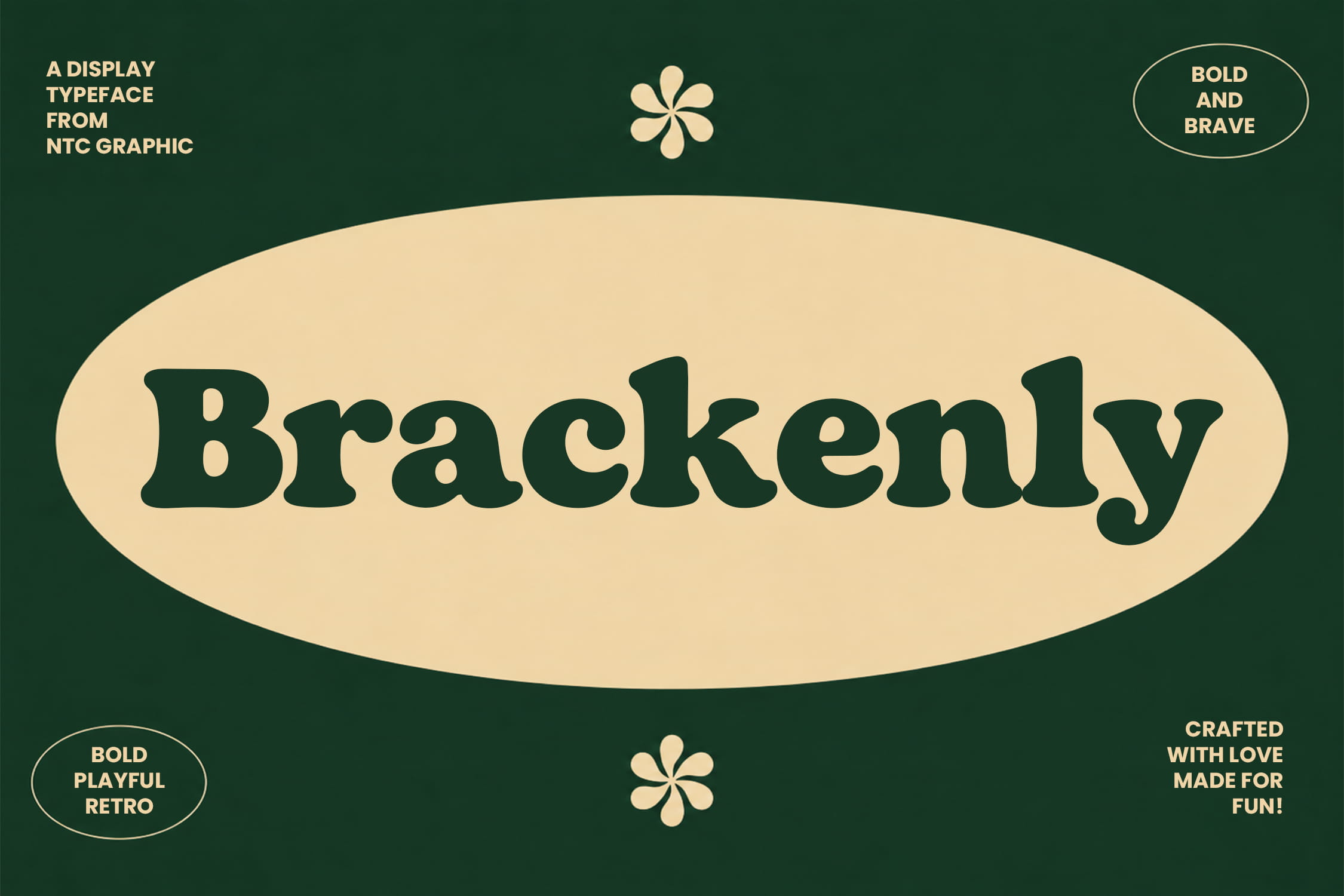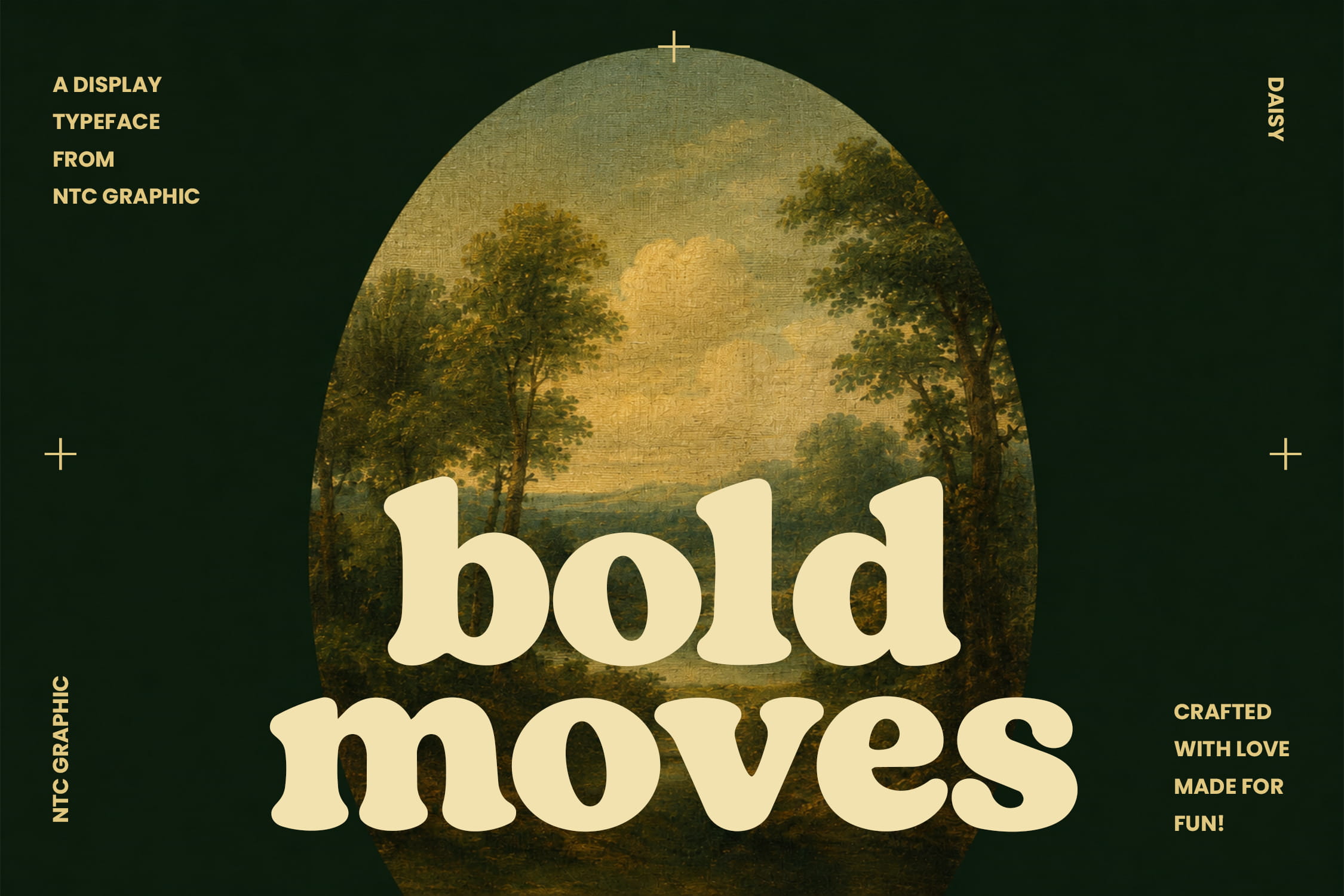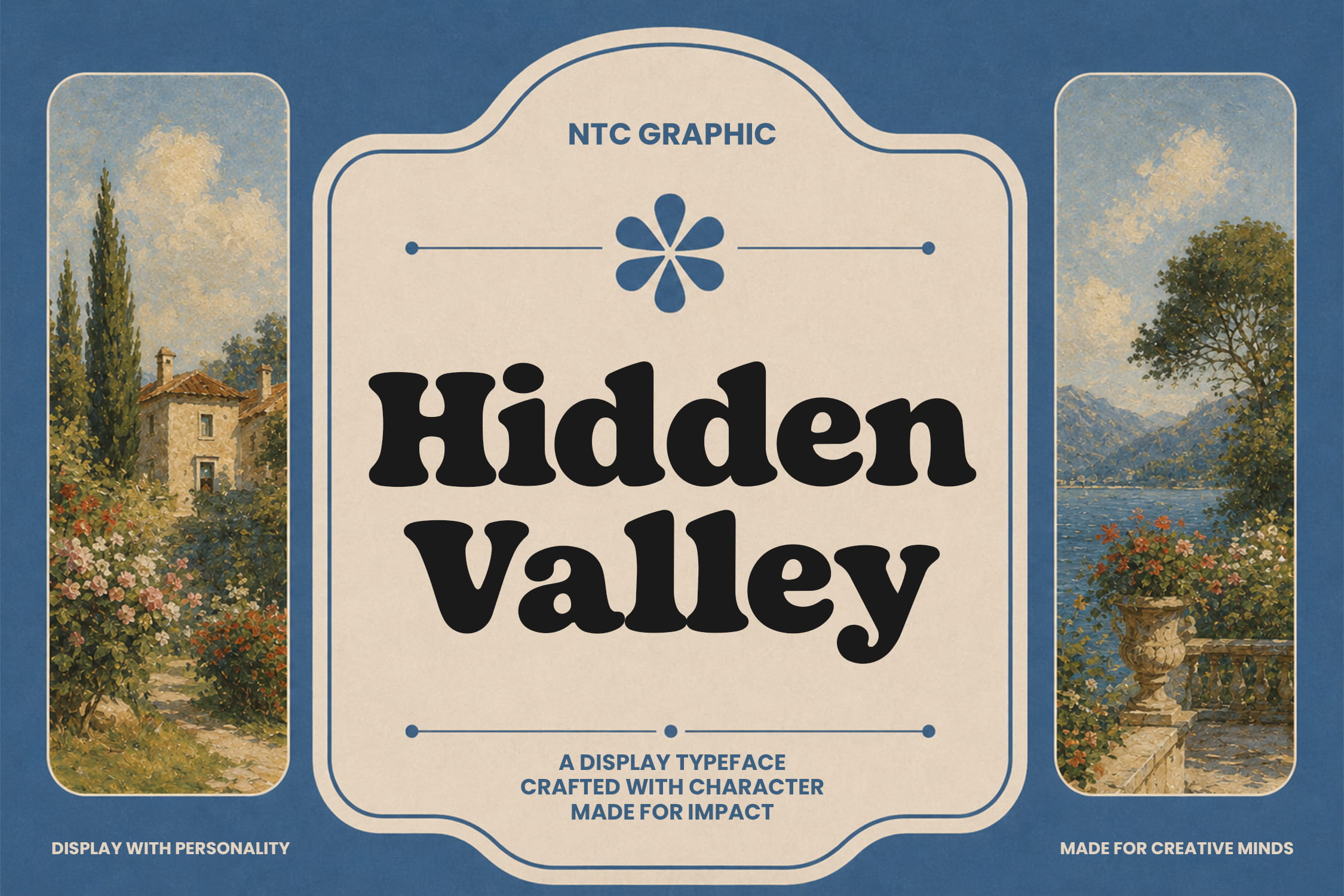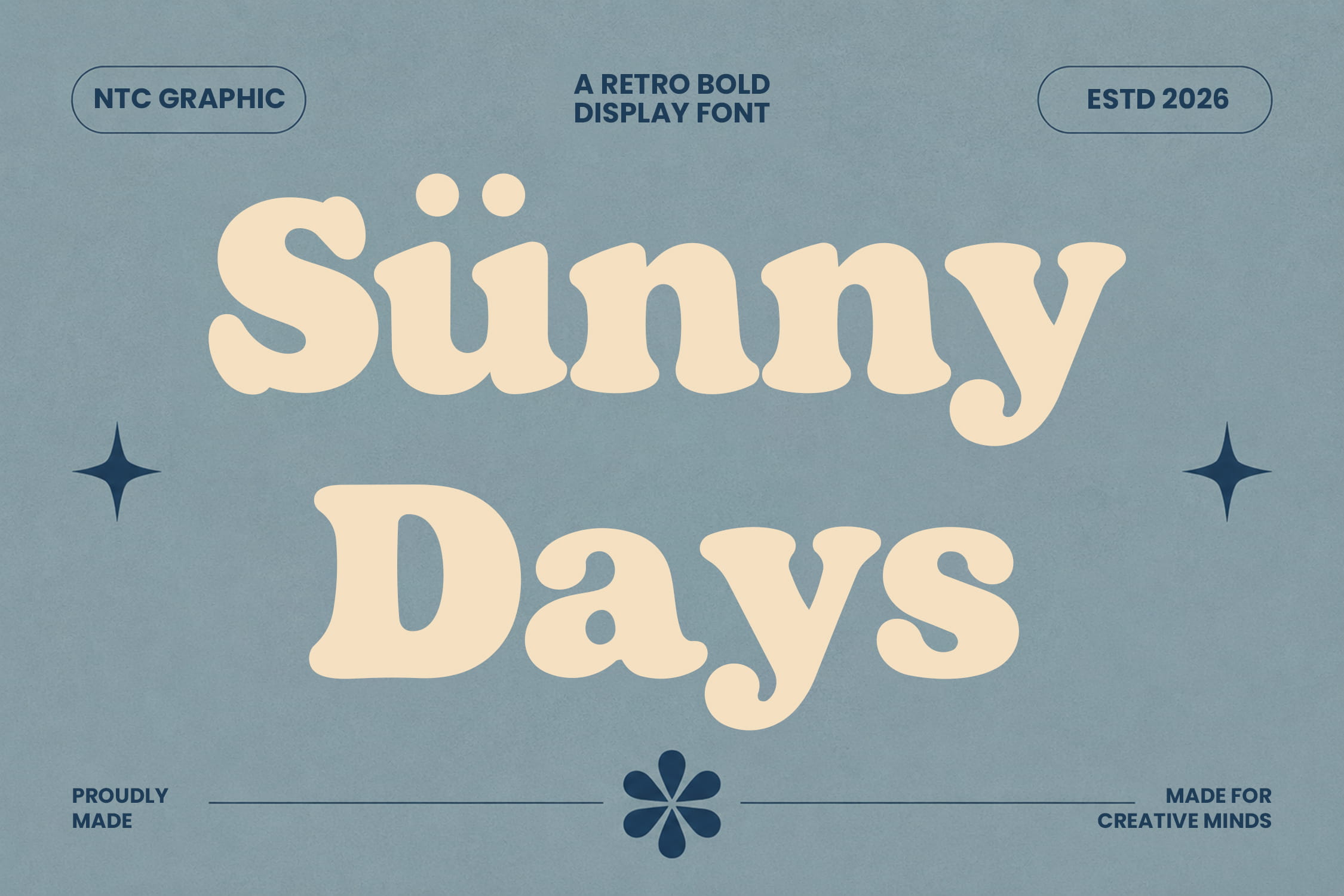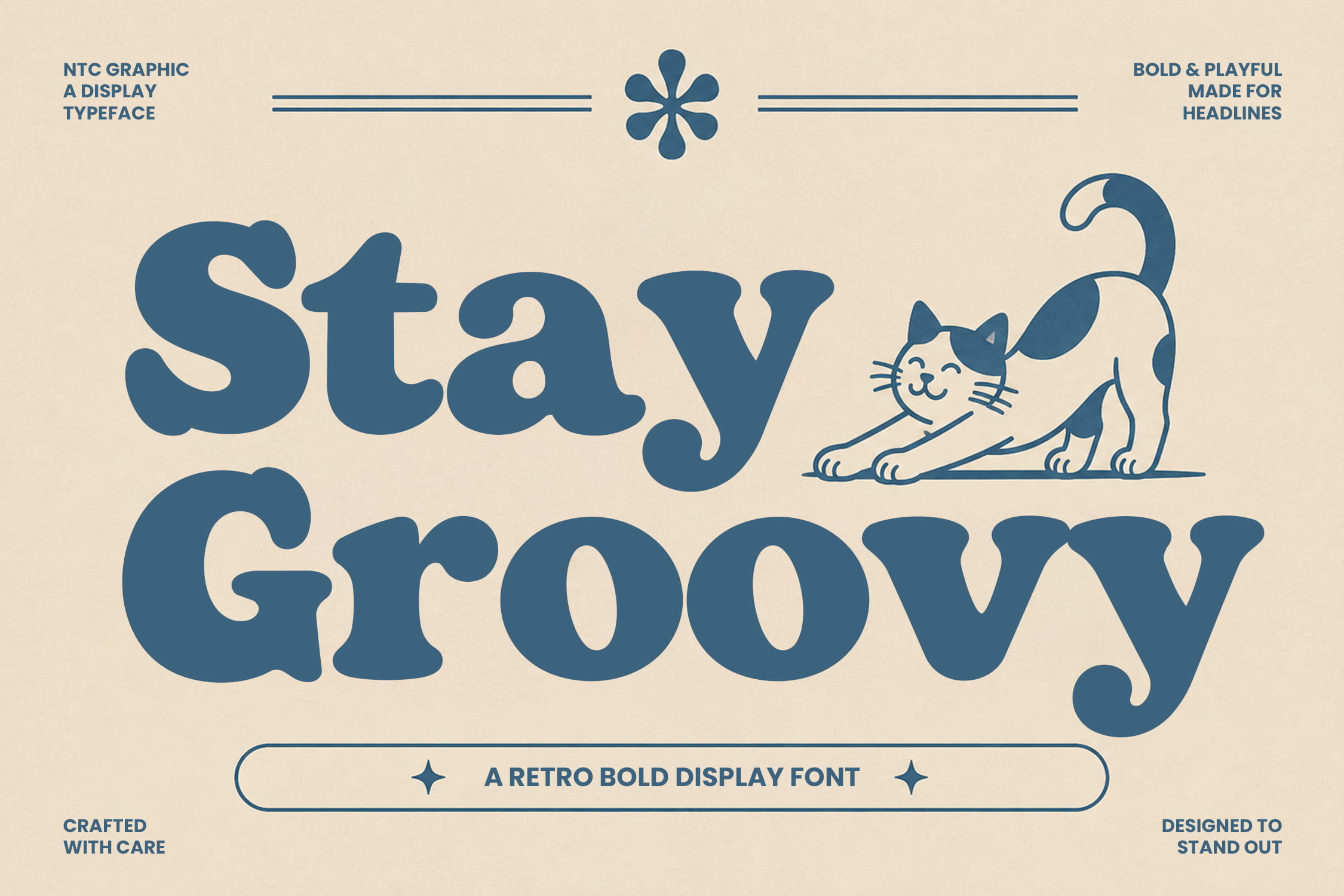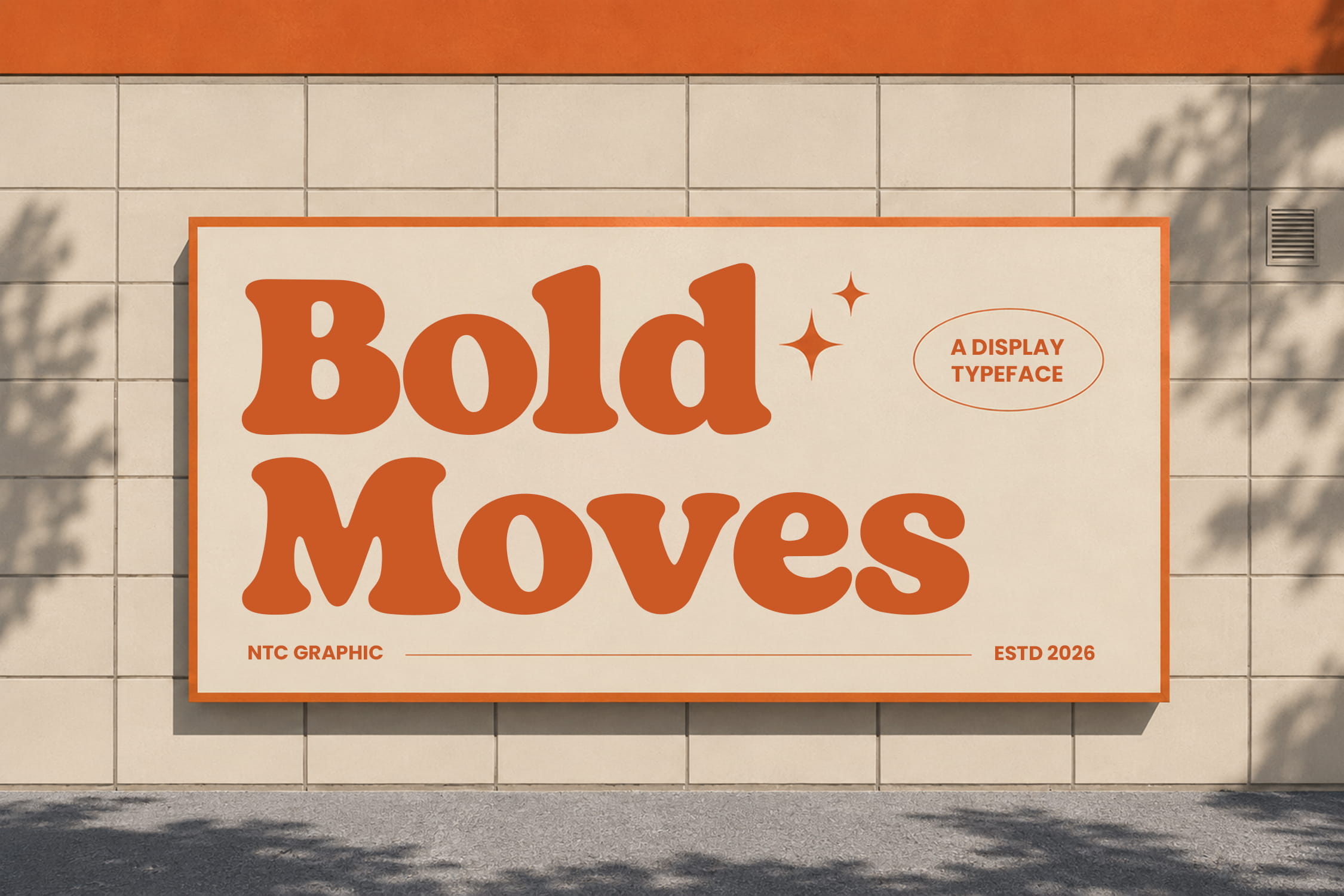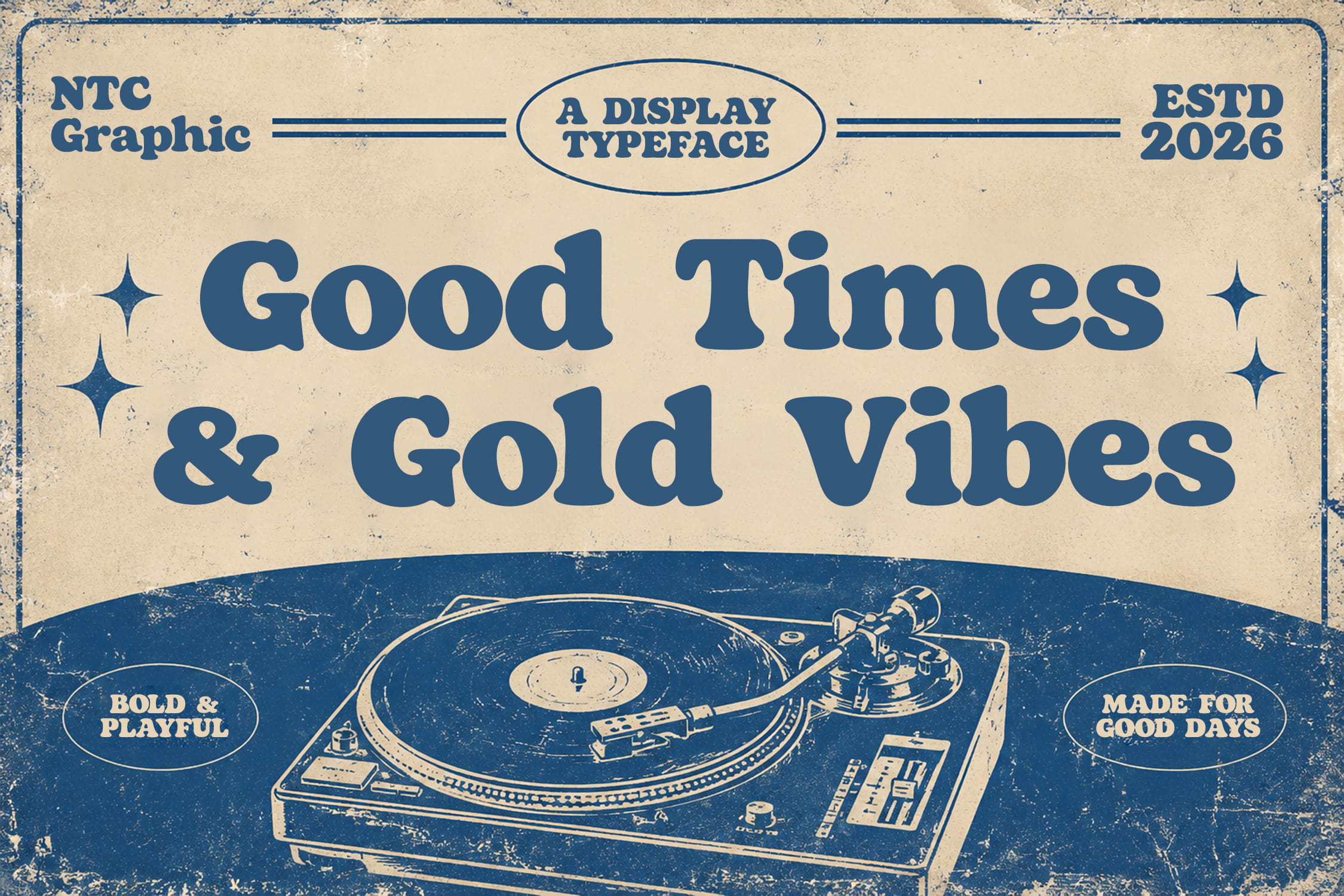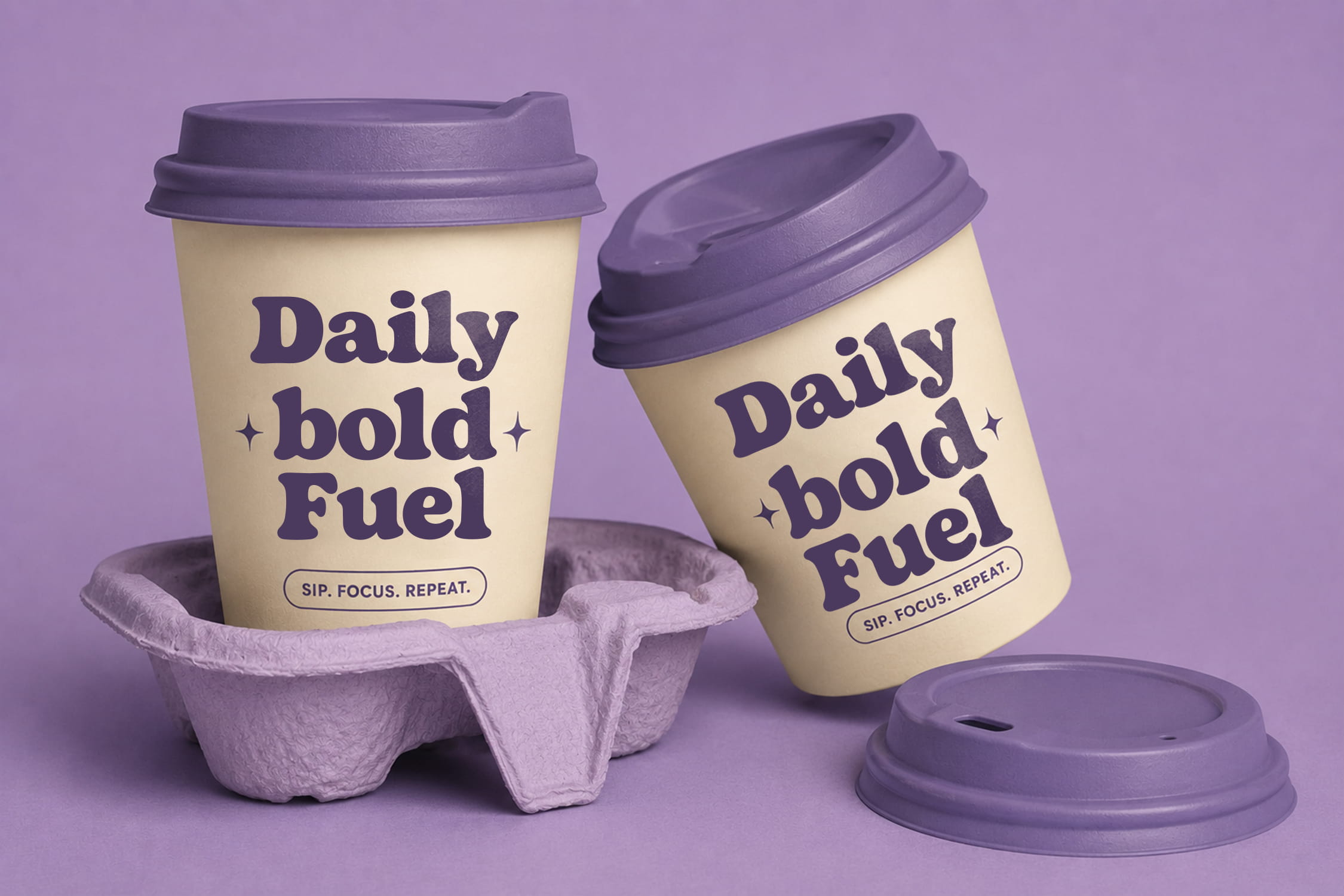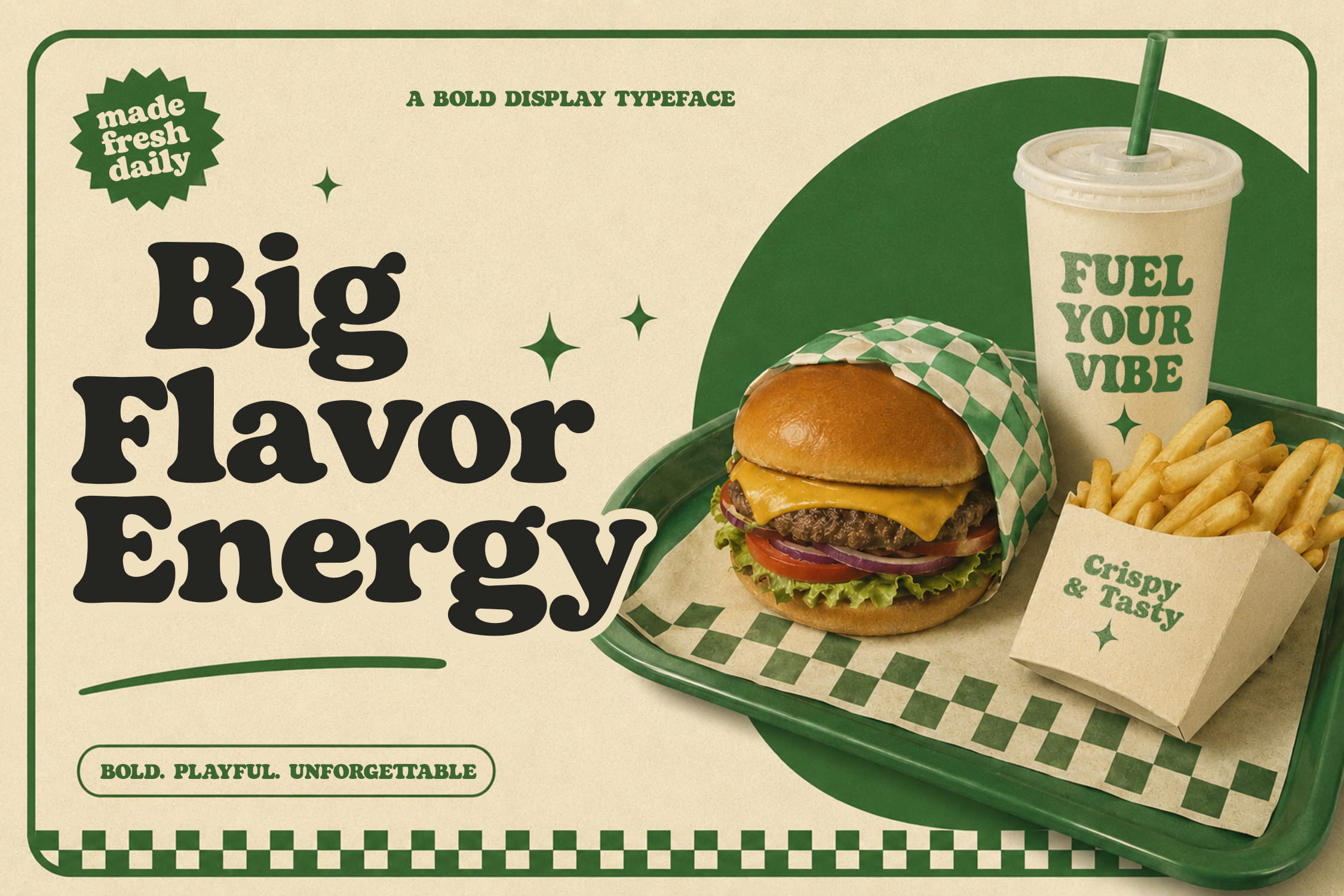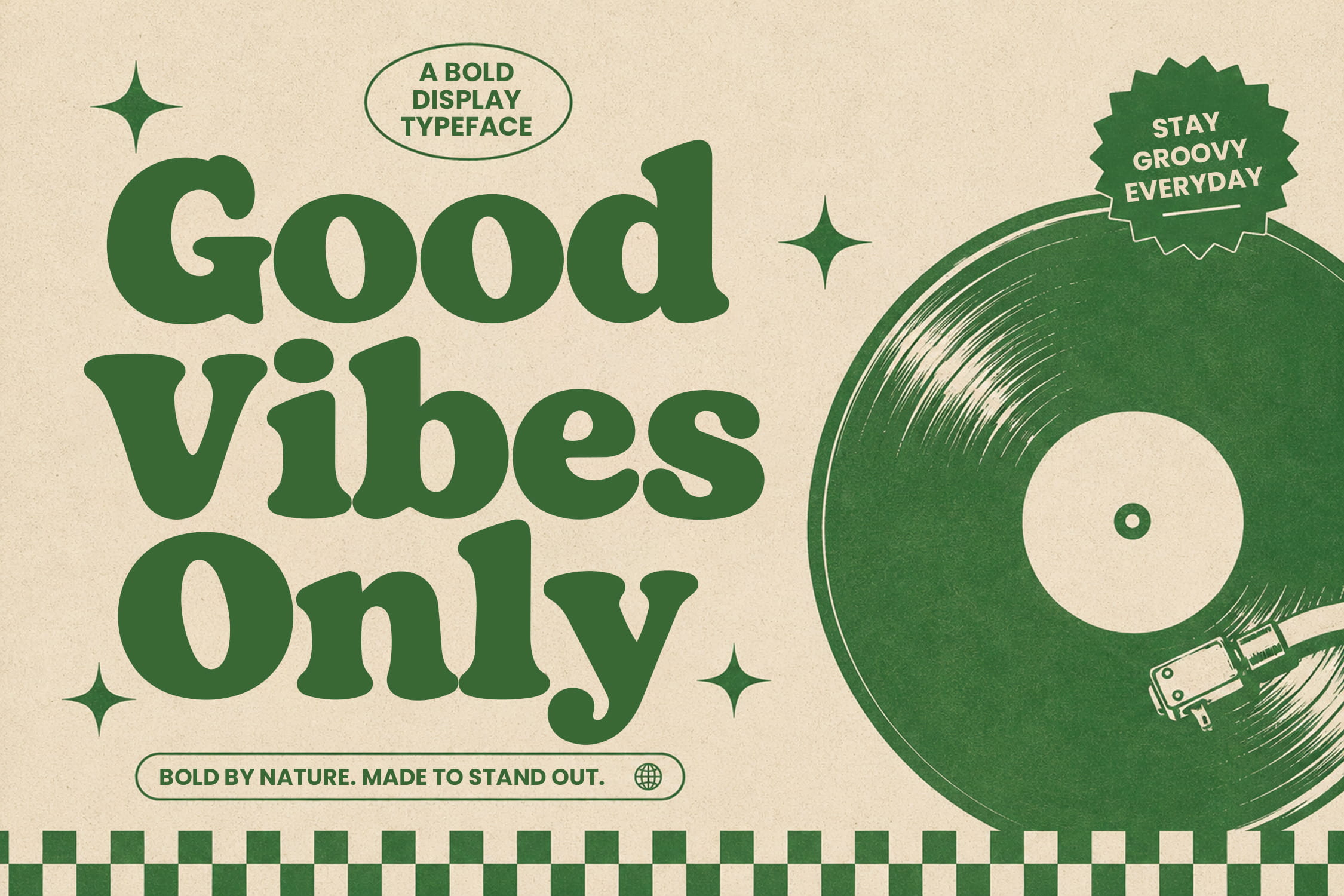
Brackenly is a bold retro display font inspired by the playful typography of the 60s and 70s. Featuring chunky letterforms, soft curves, and distinctive vintage character, this typeface is designed to bring energy, personality, and nostalgic charm to any creative project.
With its strong presence and eye-catching style, Brackenly is perfect for branding, packaging, posters, merchandise, apparel, logos, social media graphics, food and beverage promotions, music artwork, advertising campaigns, and retro-themed designs. The font combines bold visual impact with a friendly and approachable feel, making it ideal for projects that need to stand out while maintaining a fun and inviting personality.
Every letter is carefully crafted to capture the spirit of classic retro design while remaining versatile for modern creative needs. Whether you’re building a vintage-inspired brand, designing striking headlines, or creating memorable promotional materials, Brackenly delivers a confident and unforgettable visual statement.
Its groovy curves, bold weight, and timeless retro aesthetic make it an excellent choice for designers looking to add warmth, character, and vintage appeal to their work.
Features:
- Uppercase & Lowercase Characters
- Numbers & Punctuation
- Multilingual Support
- Bold Retro Display Style
- Vintage-Inspired Letterforms
- Perfect for Headlines & Branding
Add a dose of retro charm and bold personality to your designs with Brackenly, a display font crafted to make every headline feel playful, confident, and impossible to ignore.